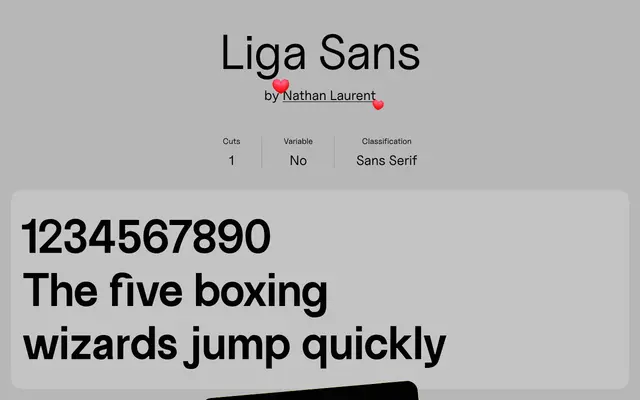
Liga Sans
A single-cut sans serif by Nathan Laurent, released under the SIL Open Font License for free commercial and personal use.
A single-weight sans serif designed by Nathan Laurent and distributed via Uncut under the SIL Open Font License 1.1. The licence permits commercial use, modification and redistribution with some conditions attached. With only one cut and no variable axis, it is a straightforward offering suited to projects requiring a clean, unfussy sans.
Classified as Sans Serif on the page; the name and single-cut release suggest a straightforward grotesque or geometric sans design.